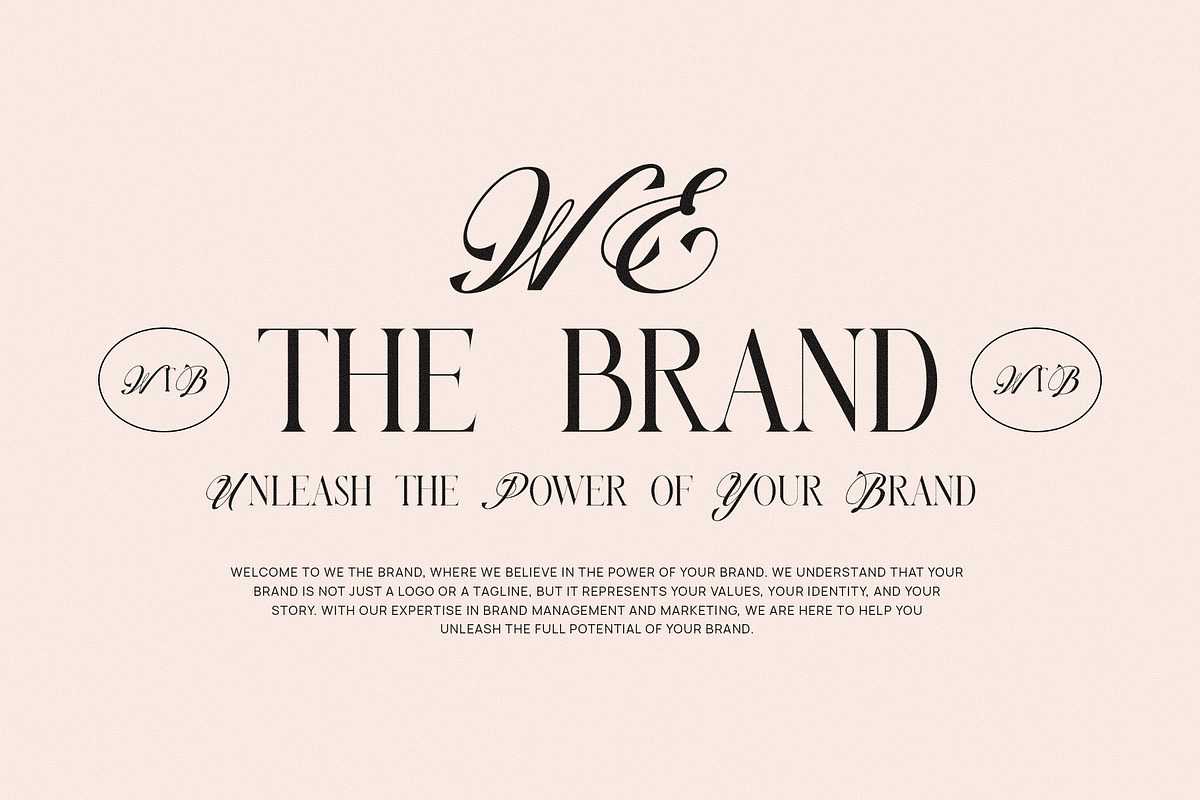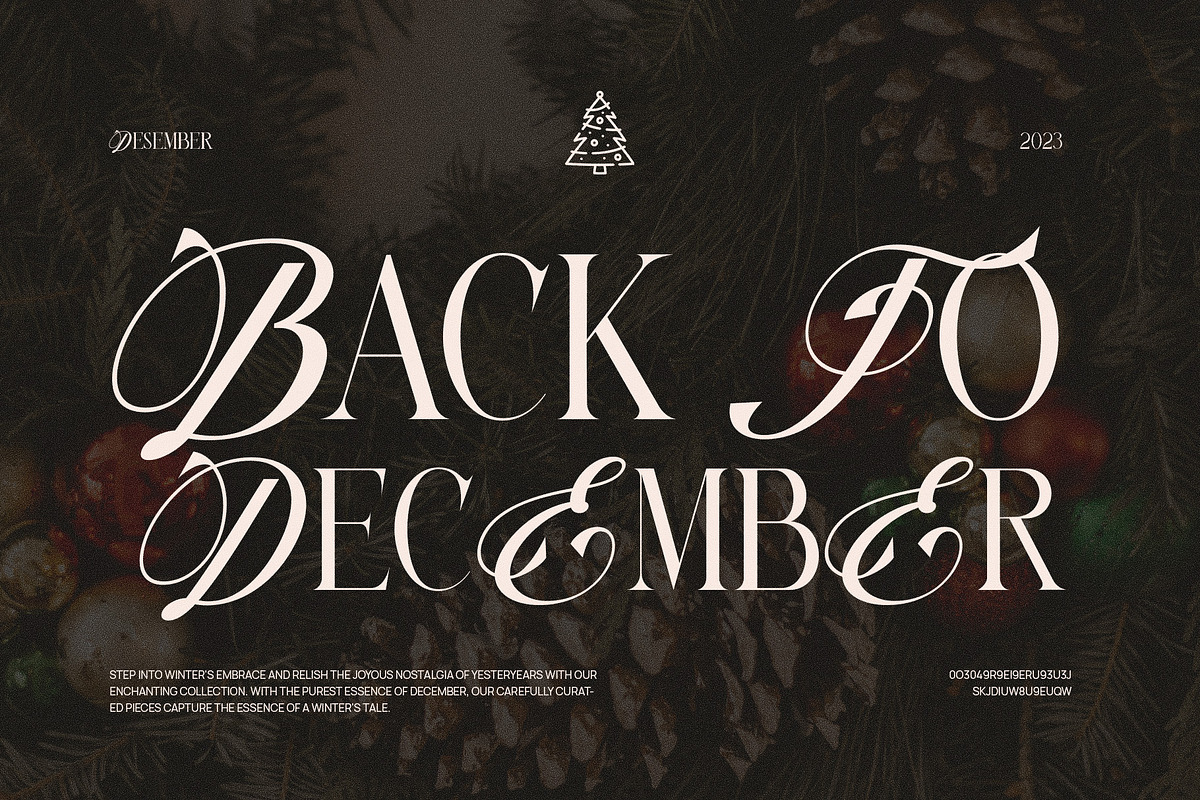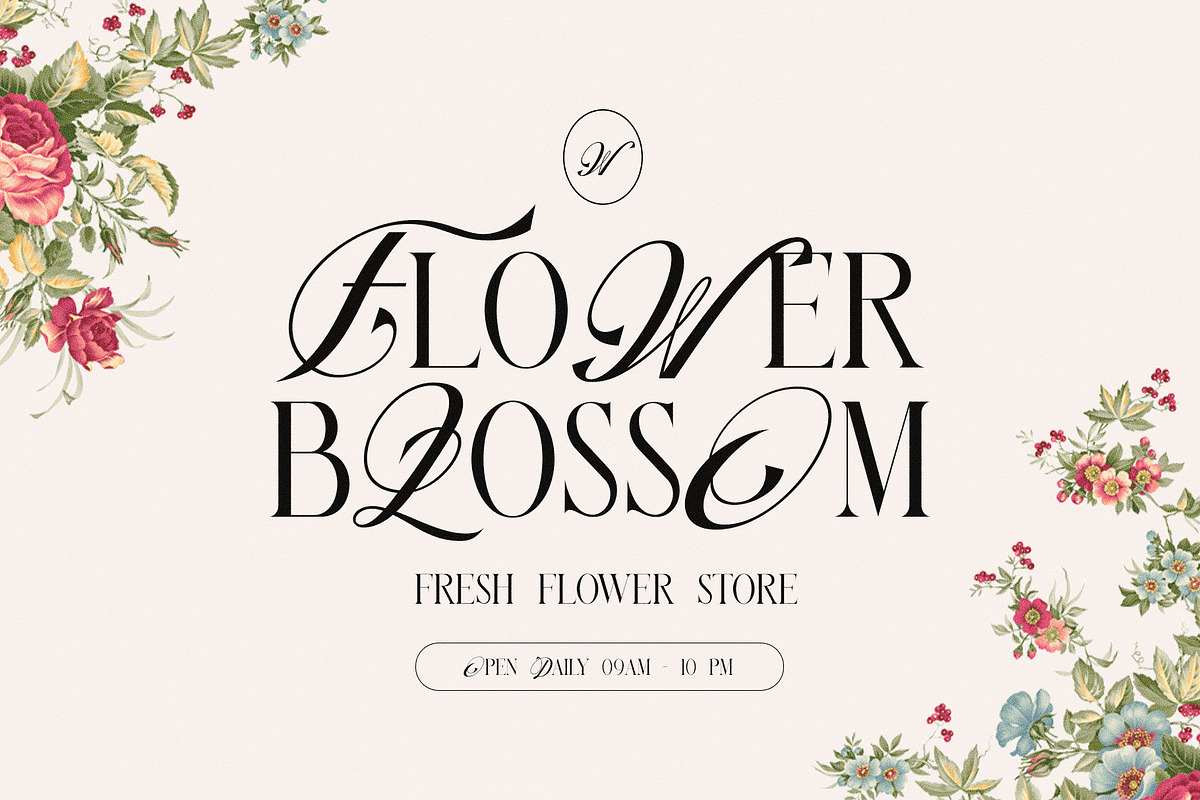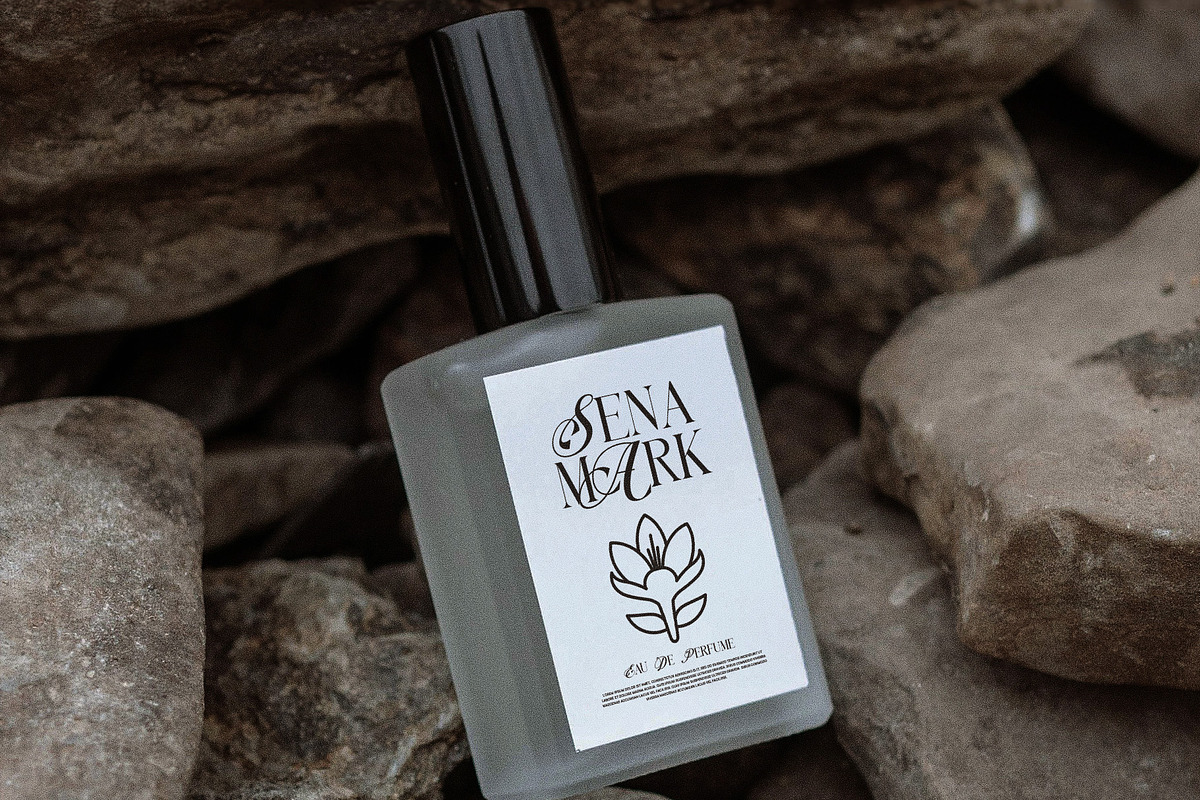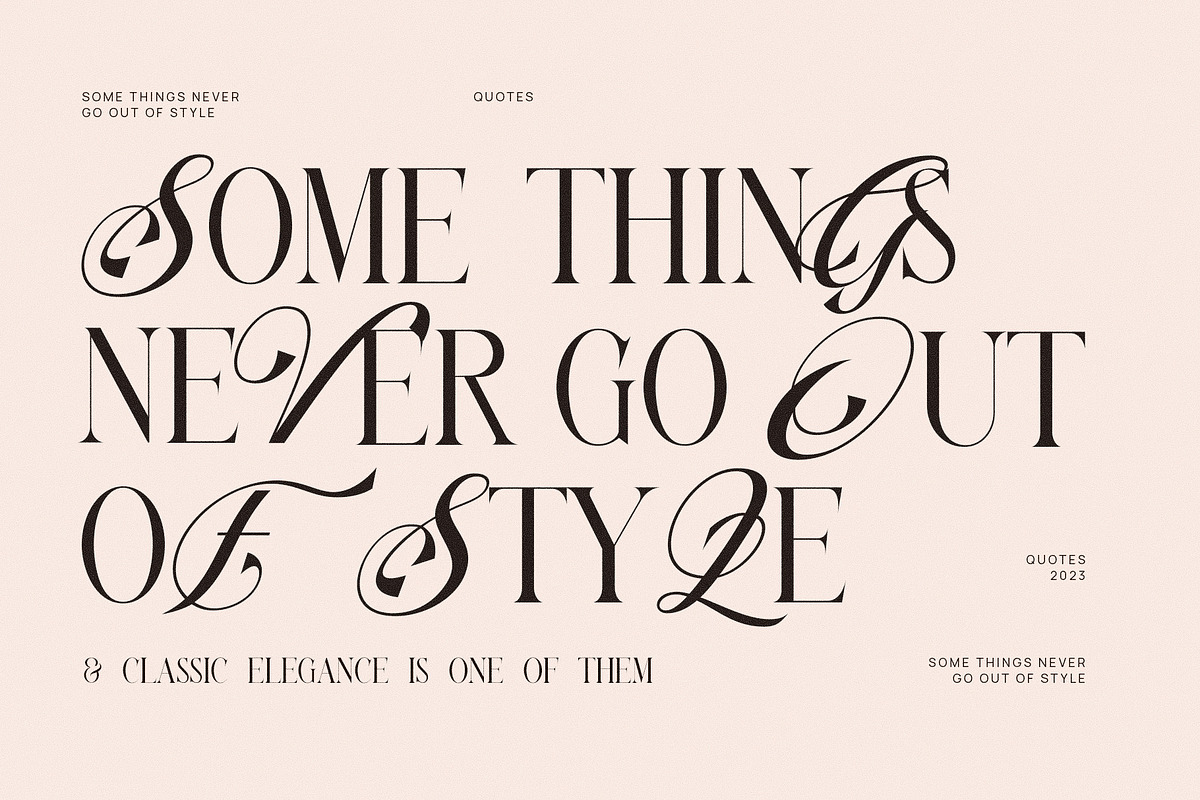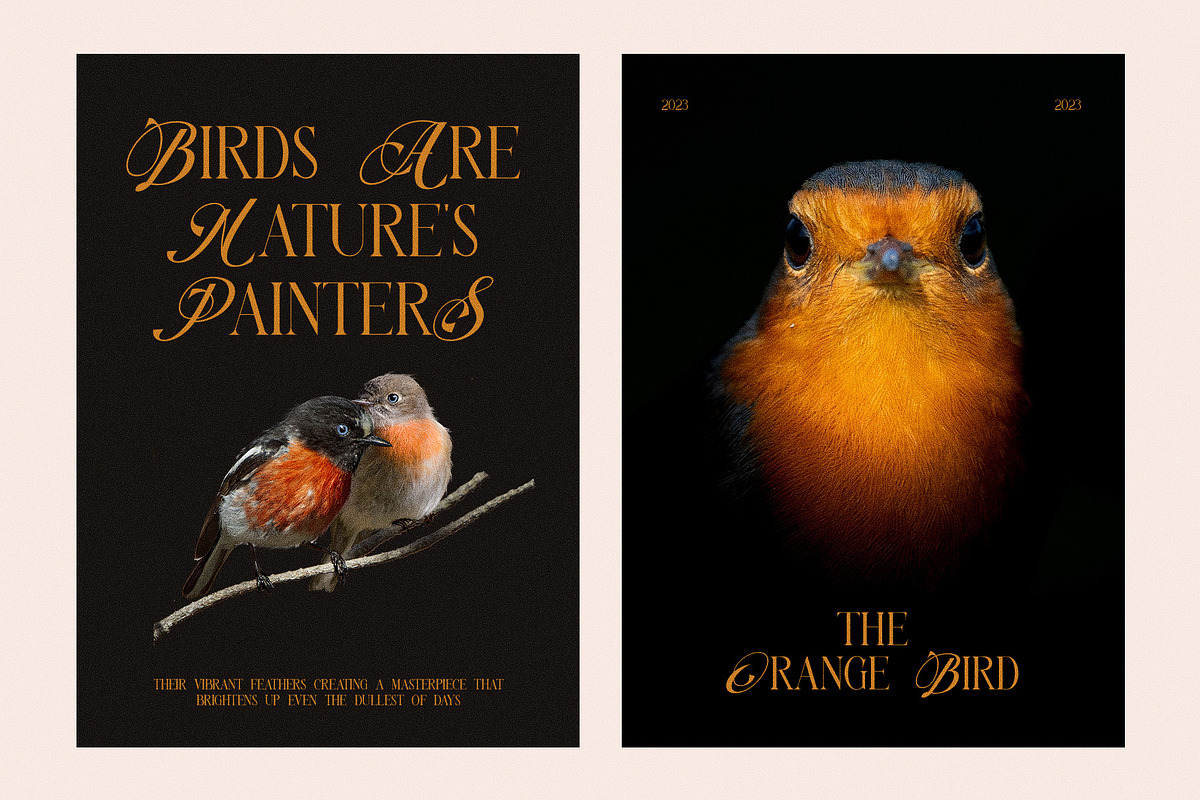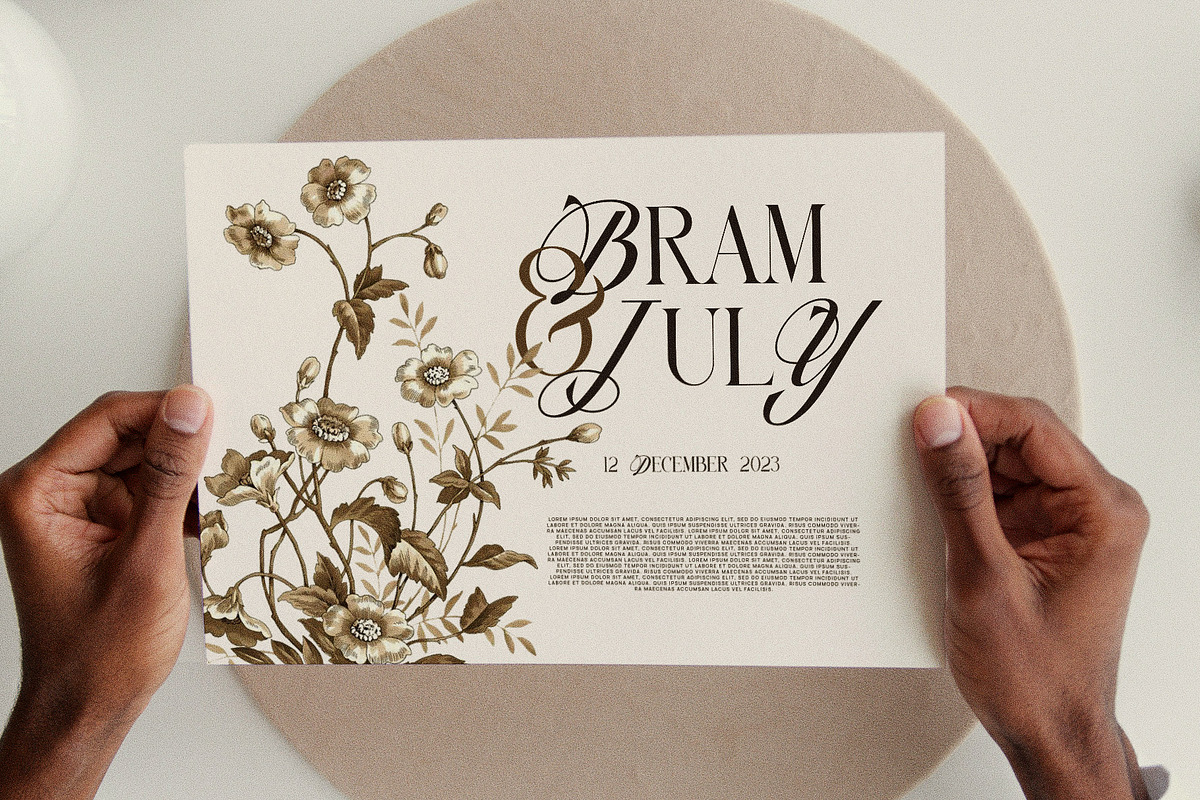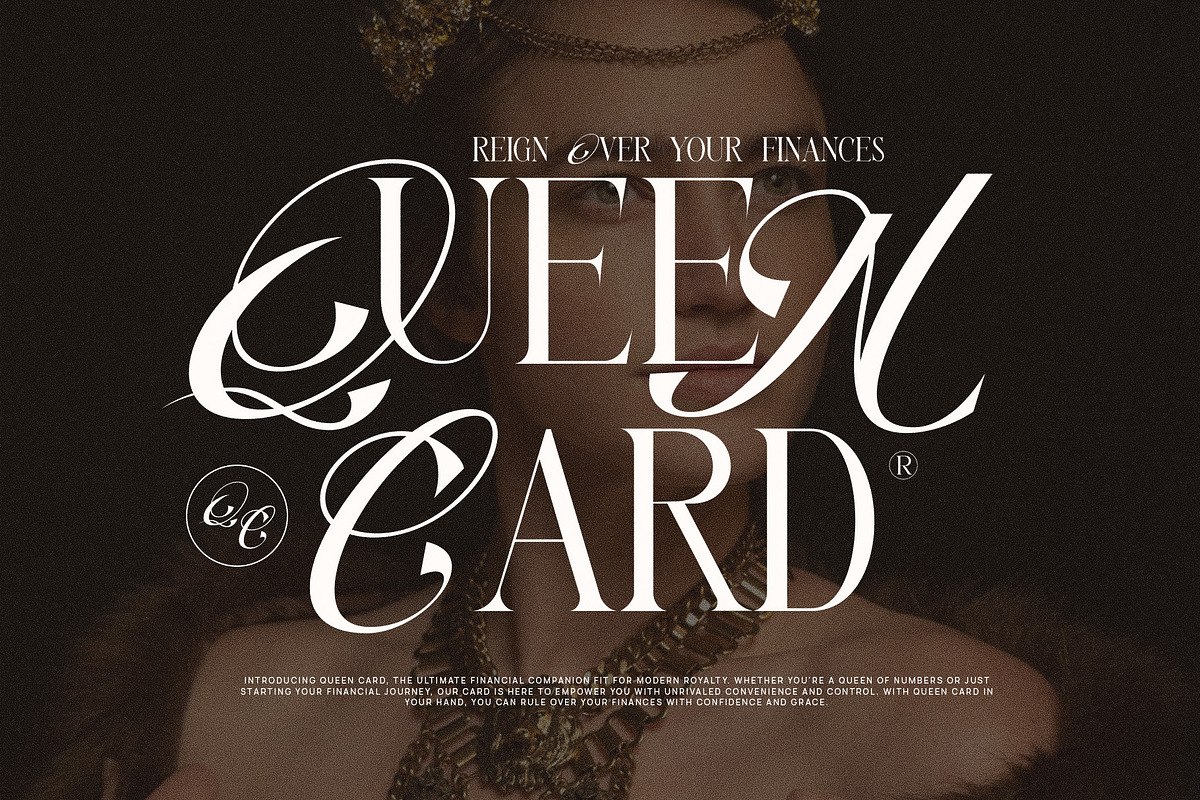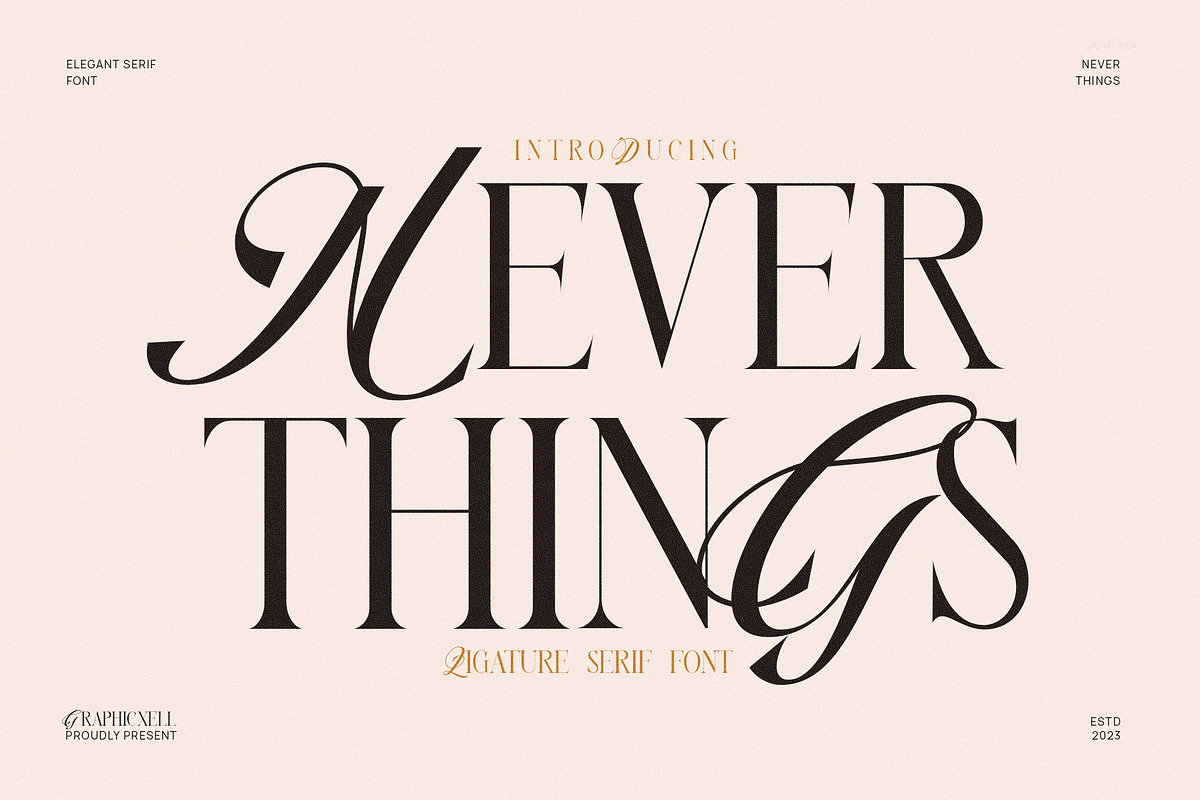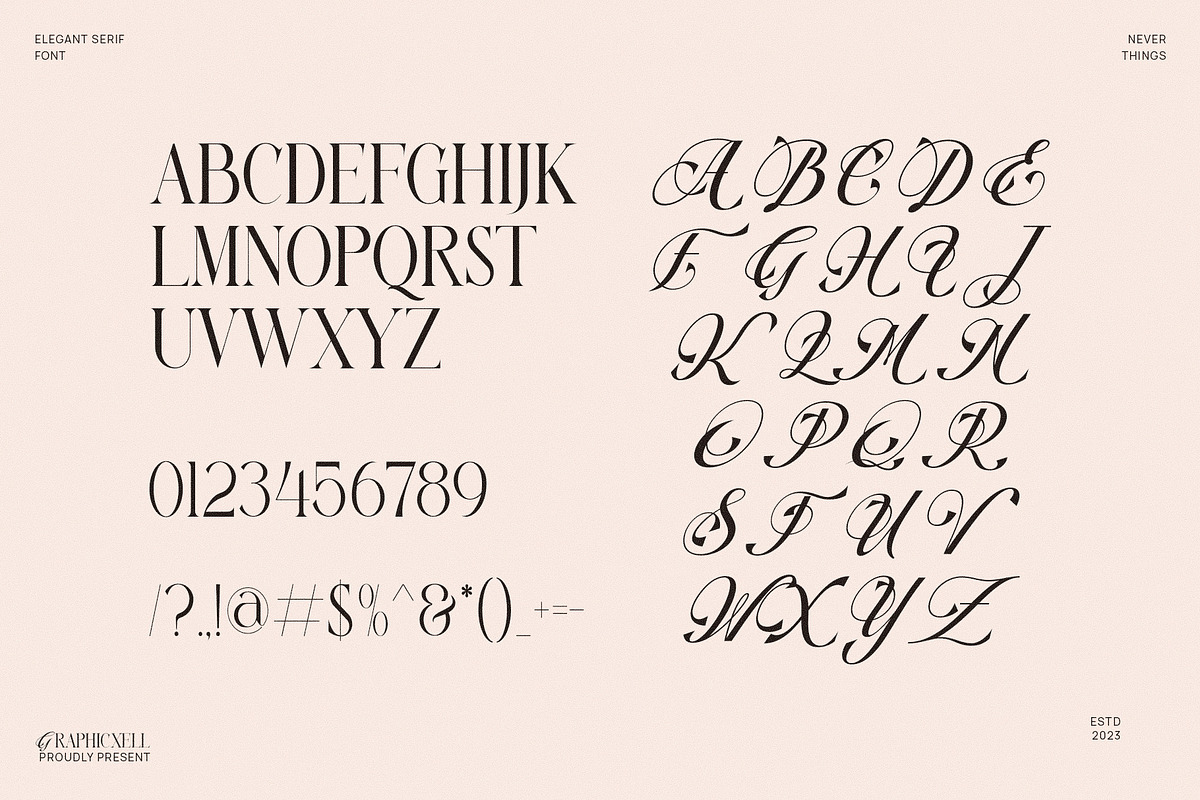
Never Things Elegant & Premium Serif
Never Things Elegant Premium Serif Font is a special typeface with a beautiful art. This premium serif font is not only elegant but also unique. The uniqueness can be seen from the striking blend of the simple and complex letterforms. Besides that, this premium serif font looks elegant, thanks to its counterstrikes. The best part from this font is the ligature that makes it really impressive. Here, the letters are connected perfectly. Some of the lines tend to be rounded while others form angles. With a premium look, this serif font is purposed for graphic designing projects. Whatever your need is, Never Things Elegant Premium Serif Font can level up your design. It can be for invitations, watermarks, product designs, logos, and other projects. Because of the elegant appeal, it should be a must-have font for any graphic designer because you cannot disappoint your client.